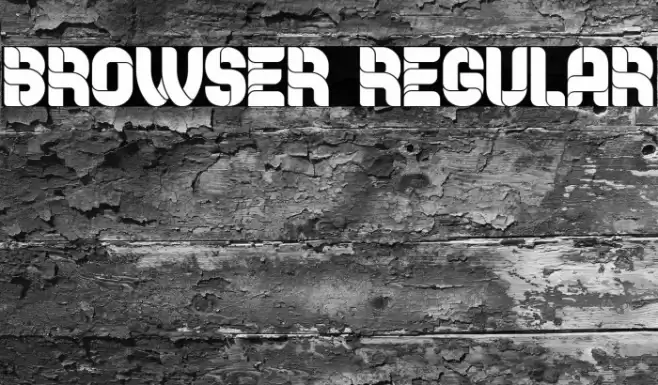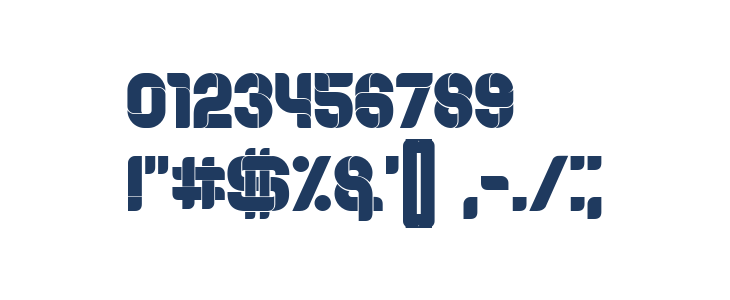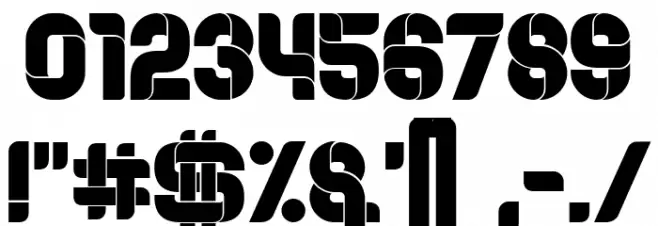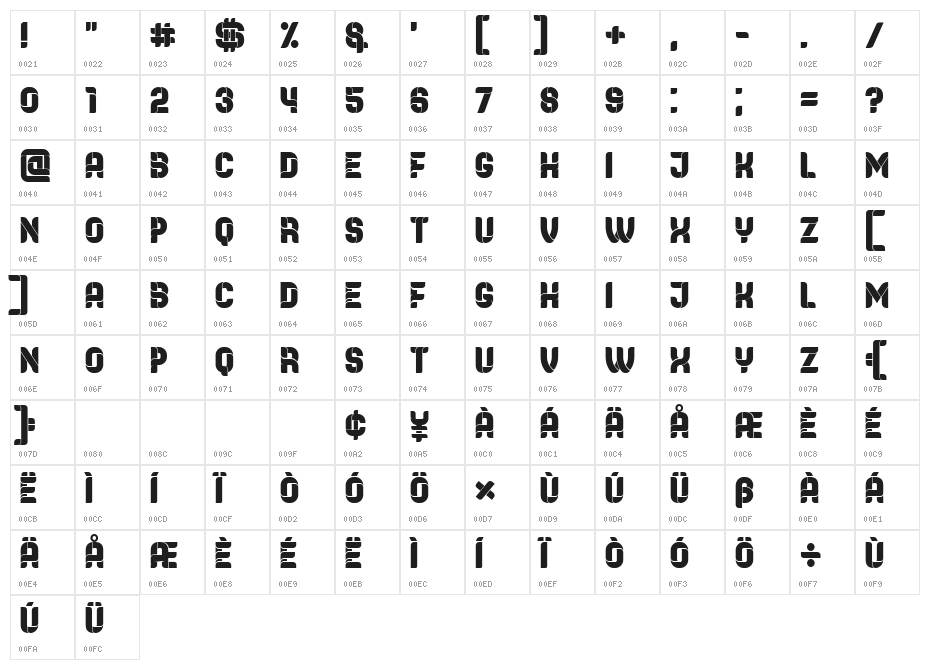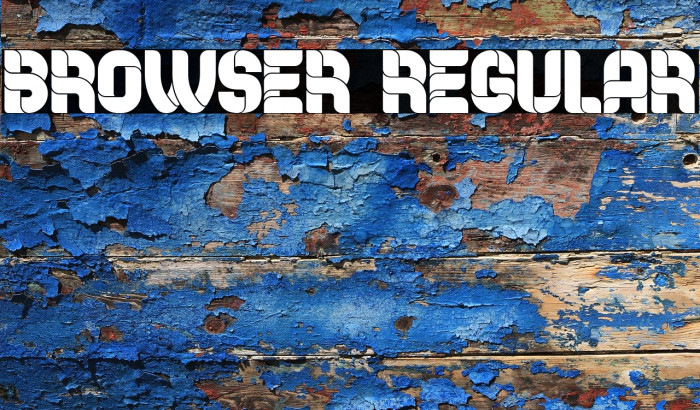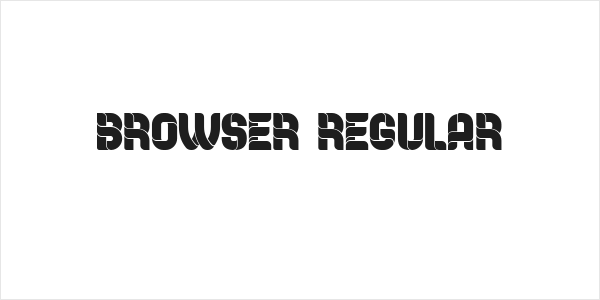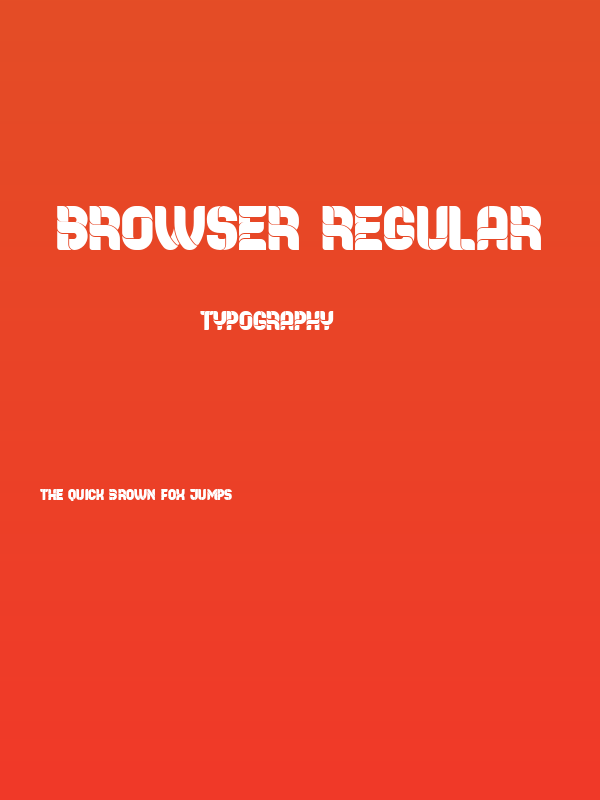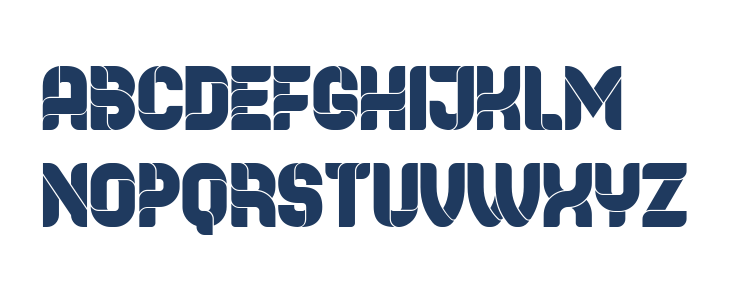
Browser Regular Font
Browser Regular Description
This font features a bold and geometric design with a modern and futuristic aesthetic. The characters are constructed with thick, block-like shapes that create a sense of strength and stability. Each letter and number is composed of distinct segments, giving it a unique, segmented appearance. The font maintains a consistent weight throughout, with no variation in stroke thickness, resulting in a uniform and cohesive look. The spacing between characters is tight, contributing to its compact and impactful style. This font is ideal for making bold statements and grabbing attention with its striking visual presence.
A bold, geometric font with a modern, segmented design from Uncategorized fonts.
- Character Spacing: Tight